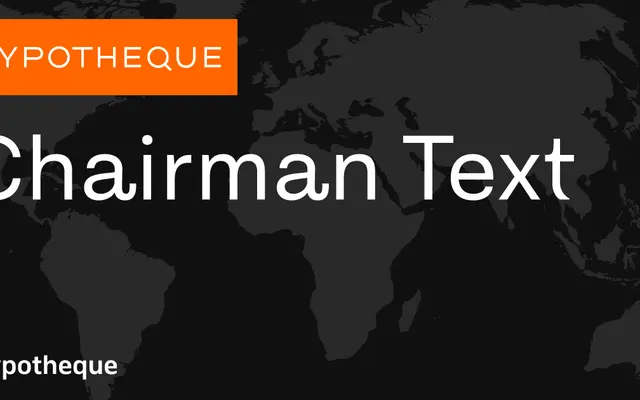
Chairman Text specimen from Typotheque
The text-optimised cut of Typotheque's Chairman system, covering five weights with italics and a variable font option for extended reading work.
Chairman Text is one of four subfamilies within the Chairman type system, sitting alongside Chairman Display, Chairman Mono and Chairman Semi-Mono. The text cut runs from Light to Bold with matching italics, calibrated for smaller sizes and continuous reading rather than headlines. A variable font version is available, and the broader system's inclusion of mono and semi-mono variants makes it well-suited for editorial or interface projects requiring typographic consistency across contexts.
Chairman Text is the text-optimised cut of the Chairman system, designed for smaller sizes with a serif construction suited to extended reading. Its optical sizing alongside Display and Mono subfamilies places it within a structured transitional serif system.